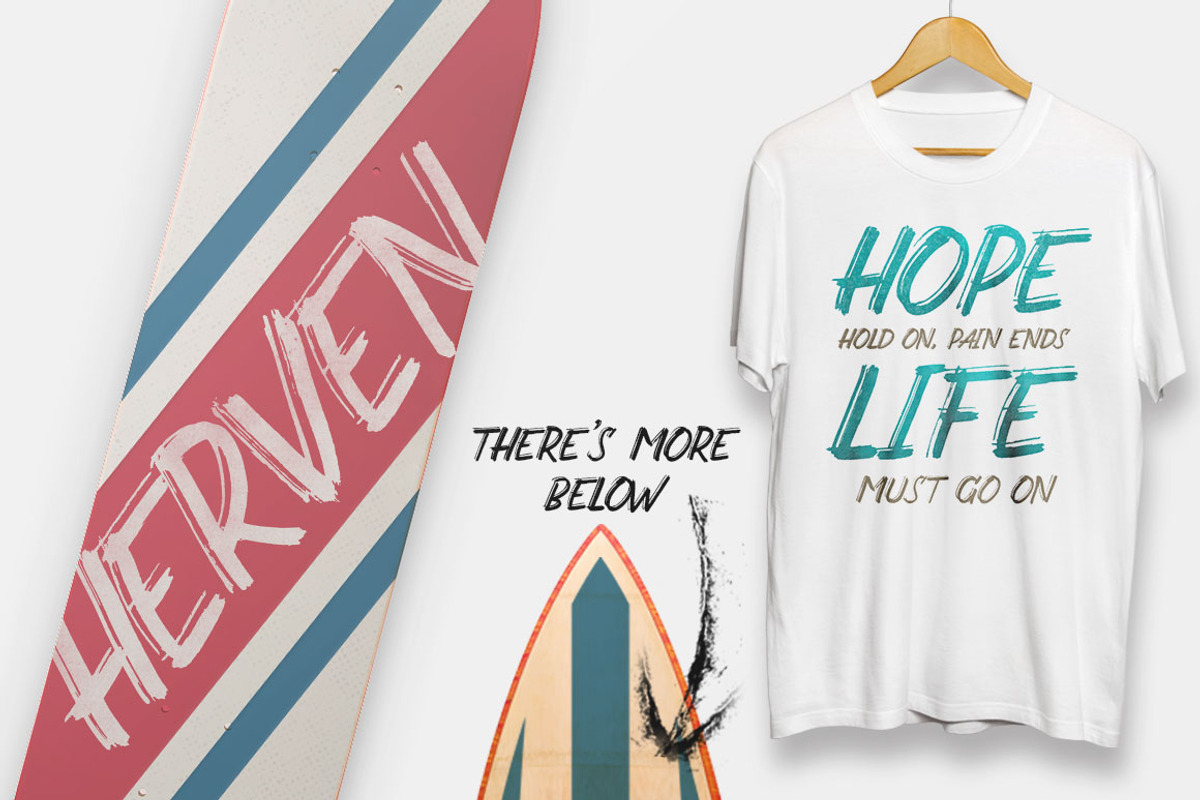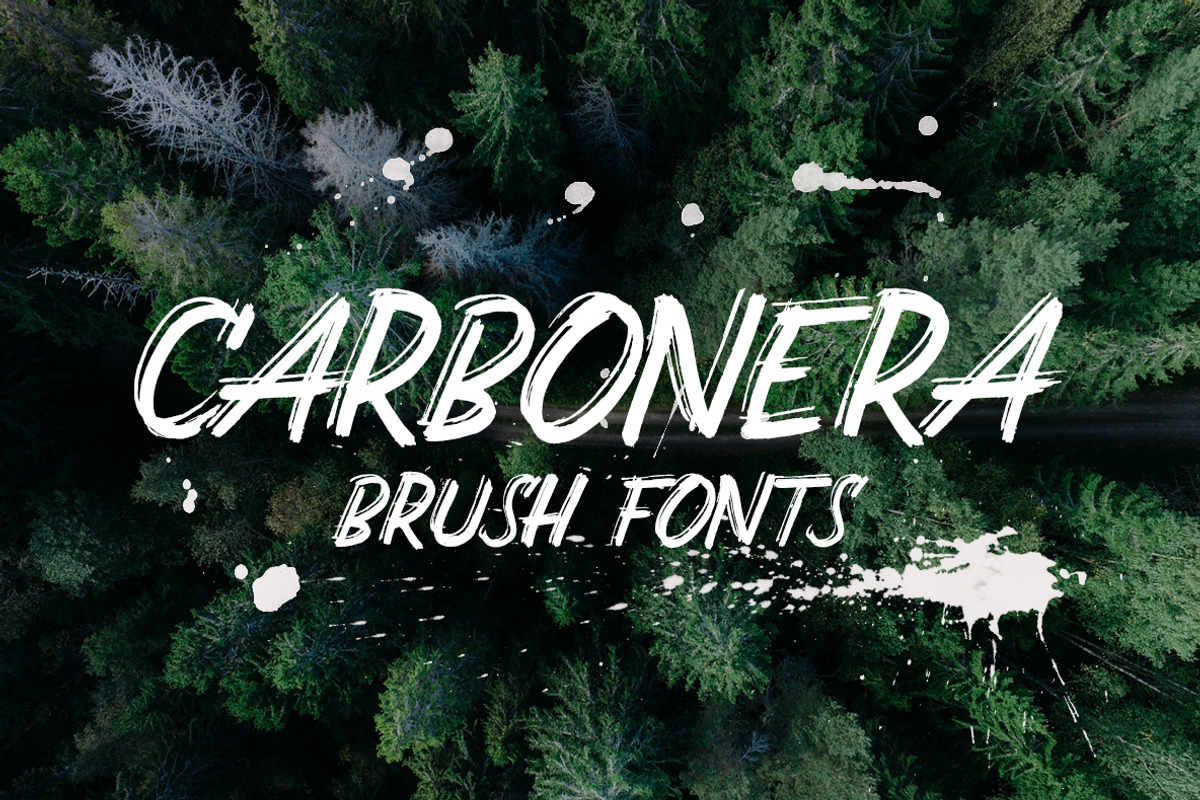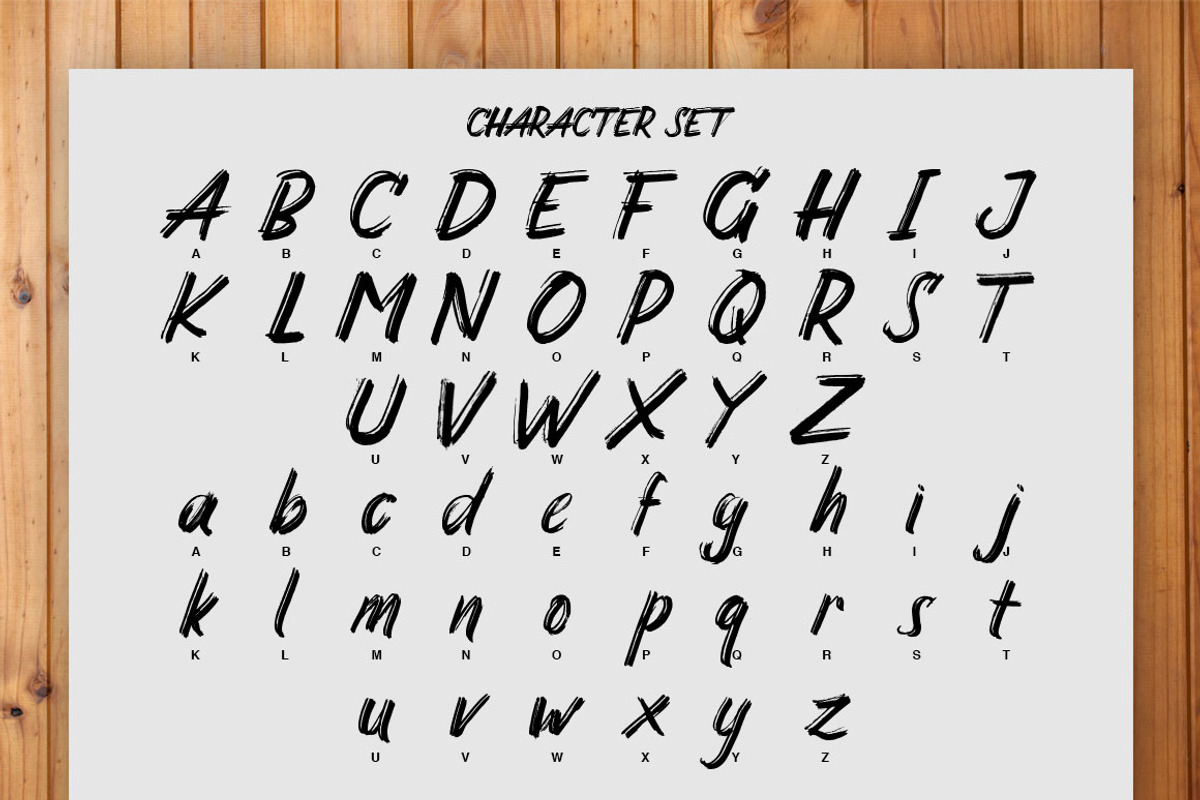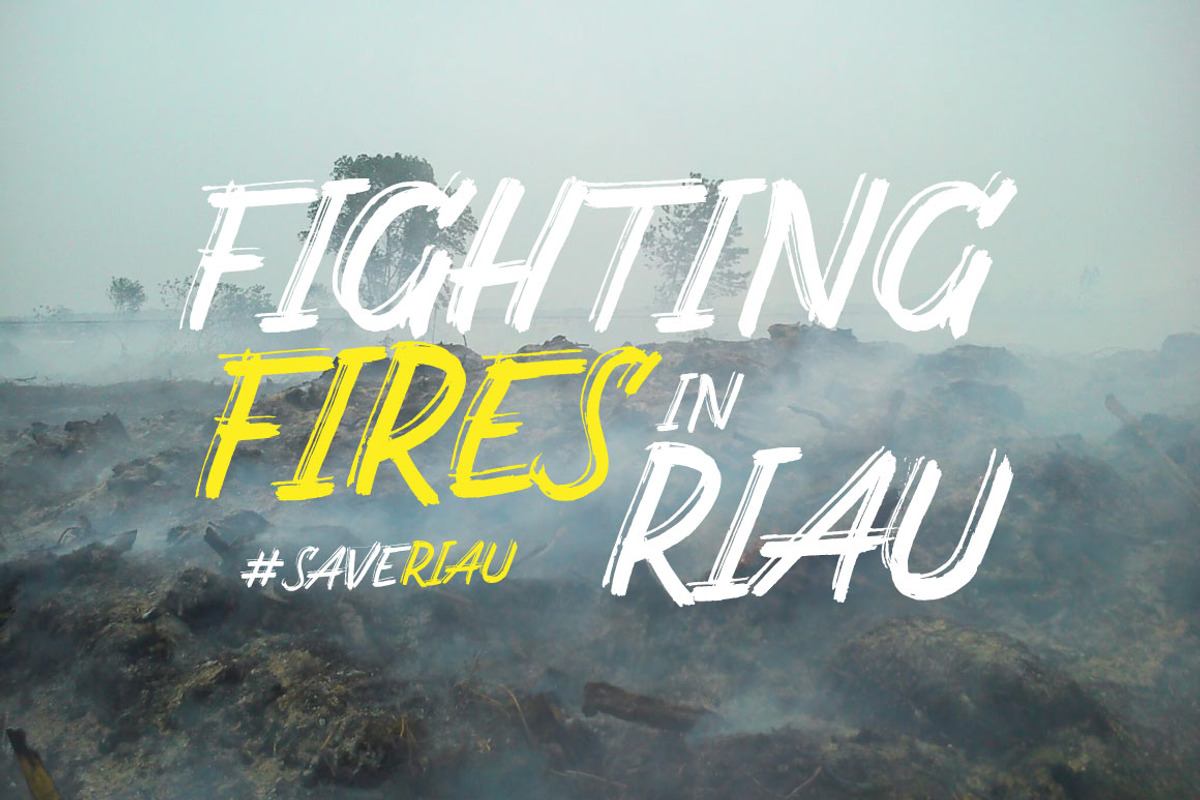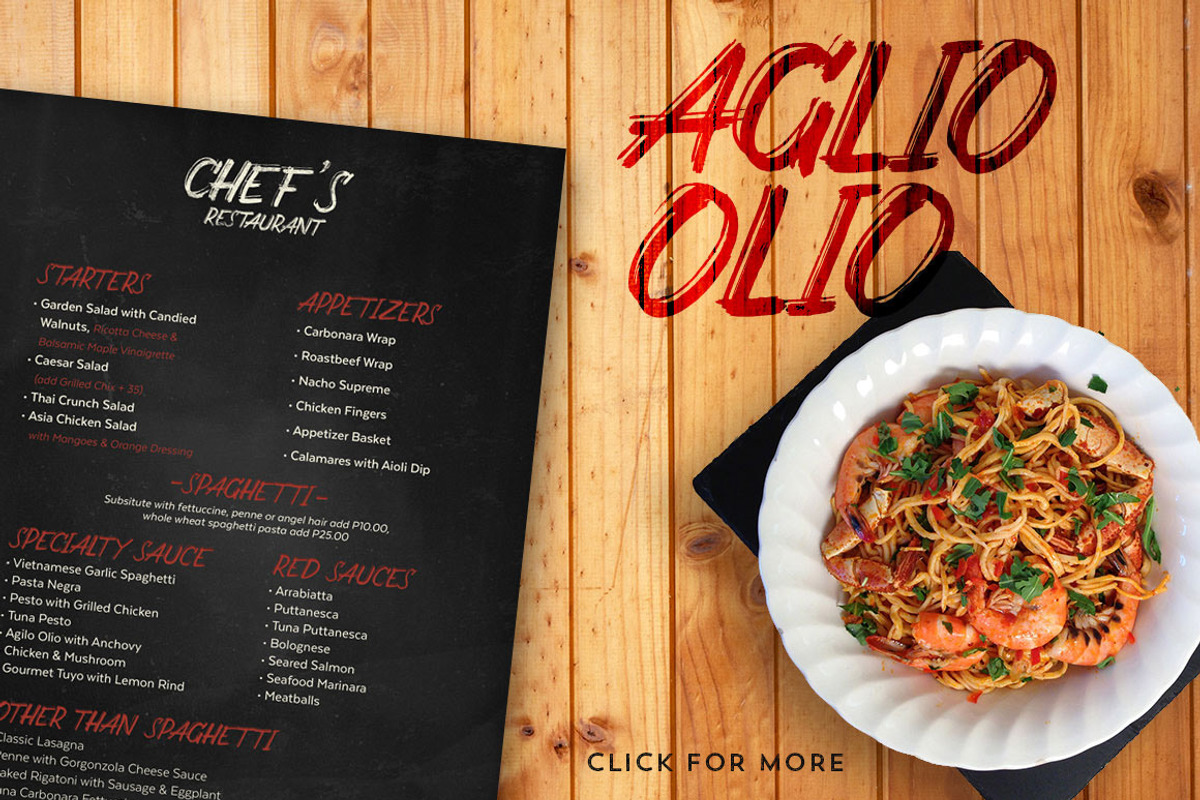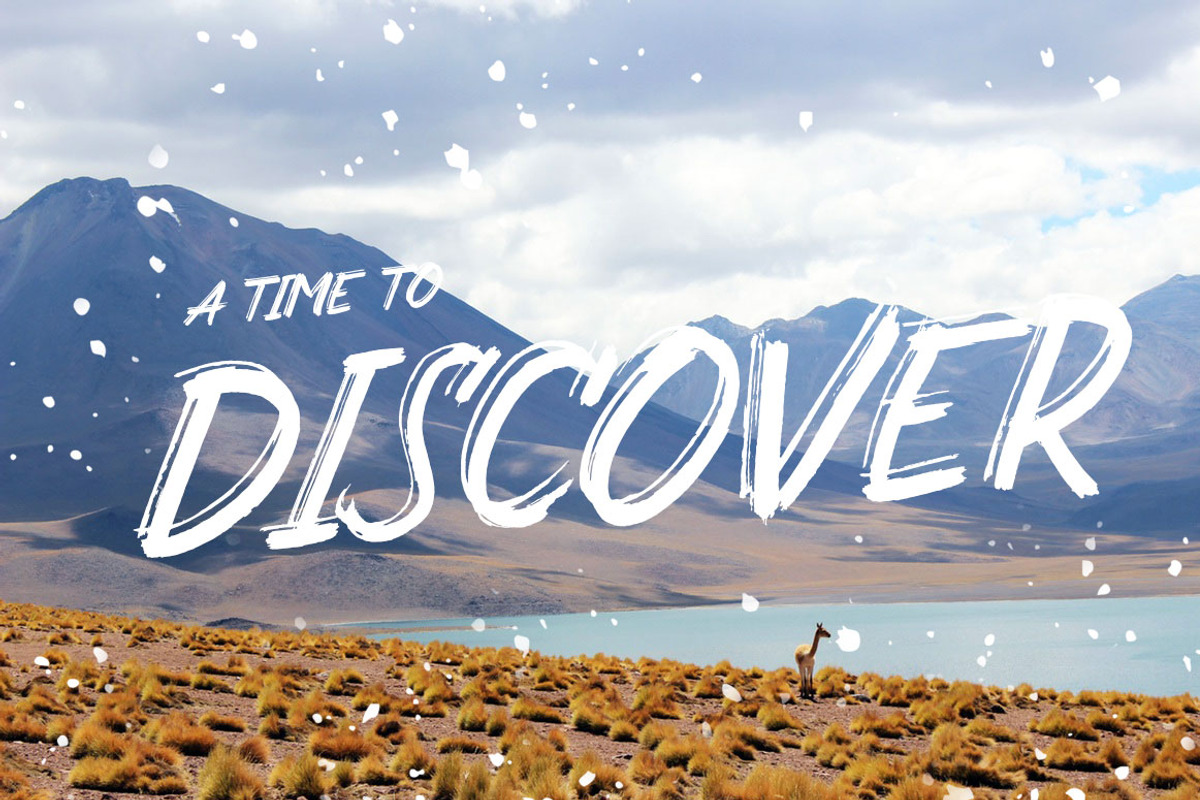
Carbonera Brush Fonts
Carbonera Brush Fonts by Adam Fathony is a font selected for branding, posters, packaging, typography.
Why Carbonera Brush Fonts is worth a look
Carbonera Brush Fonts by Adam Fathony fits naturally into Branding, posters, packaging, typography.